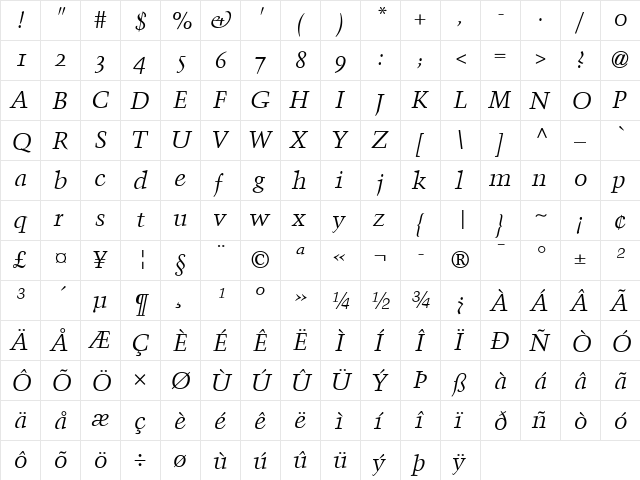
Trump Mediaeval SC Italic
Design Context for Trump Mediaeval SC Typeface
Trump Mediaeval SC offers clean, dependable letterforms without strong stylistic allegiance, making it a practical choice for designers who need flexibility. The dynamic lean of this cut emphasises speed and emphasis in any layout.
Pro Tip: Use Trump Mediaeval SC for emphasis, pull quotes, and subheadings where its slanted energy can add rhythm to the layout.